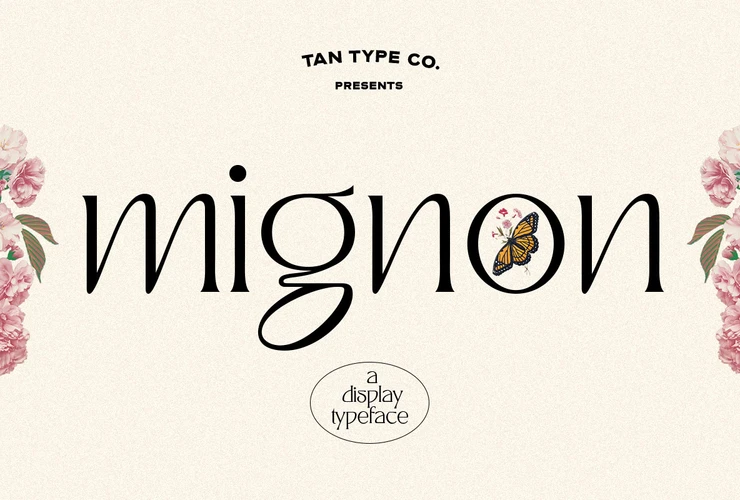
Art deco architecture as the starting point
TanType describes TAN Mignon as “a simple display typeface inspired by the art deco architectural shape,” and adds that it is “perfect if you want something minimalistic with a twist.” Luc Devroye’s catalogue of TanType fonts lists Mignon among the foundry’s 2021 releases and calls it “a stylish display serif.”
Art deco buildings of the 1920s and 1930s are known for tall, stepped and geometric forms. The designer’s pitch is that TAN Mignon brings some of that structure to letters while keeping the overall look simple. We have not examined the font files, so check the official preview images for the details before you buy.
The word “mignon” is French for cute or dainty, which matches the light, minimal tone the listing describes.
Projects that suit a minimal deco display face
A display serif with deco influence is a headline font. It shines at large sizes and in short text. Good matches include:
- Wordmarks for hotels, bars, jewellers and fashion labels that want a 1920s reference without heavy ornament.
- Wedding and party invitations with a Gatsby or vintage theme.
- Menu headers, wine labels and perfume packaging.
- Book covers and posters for historical or noir subjects.
For body text, use a calm partner. Josefin Sans has a geometric, vintage feel that sits well beside deco shapes. Raleway is another light geometric sans, and Cormorant works if you want a serif for longer paragraphs.
What style is TAN Mignon?
The designer calls it a simple display typeface inspired by art deco architecture. Luc Devroye describes it as a stylish display serif.